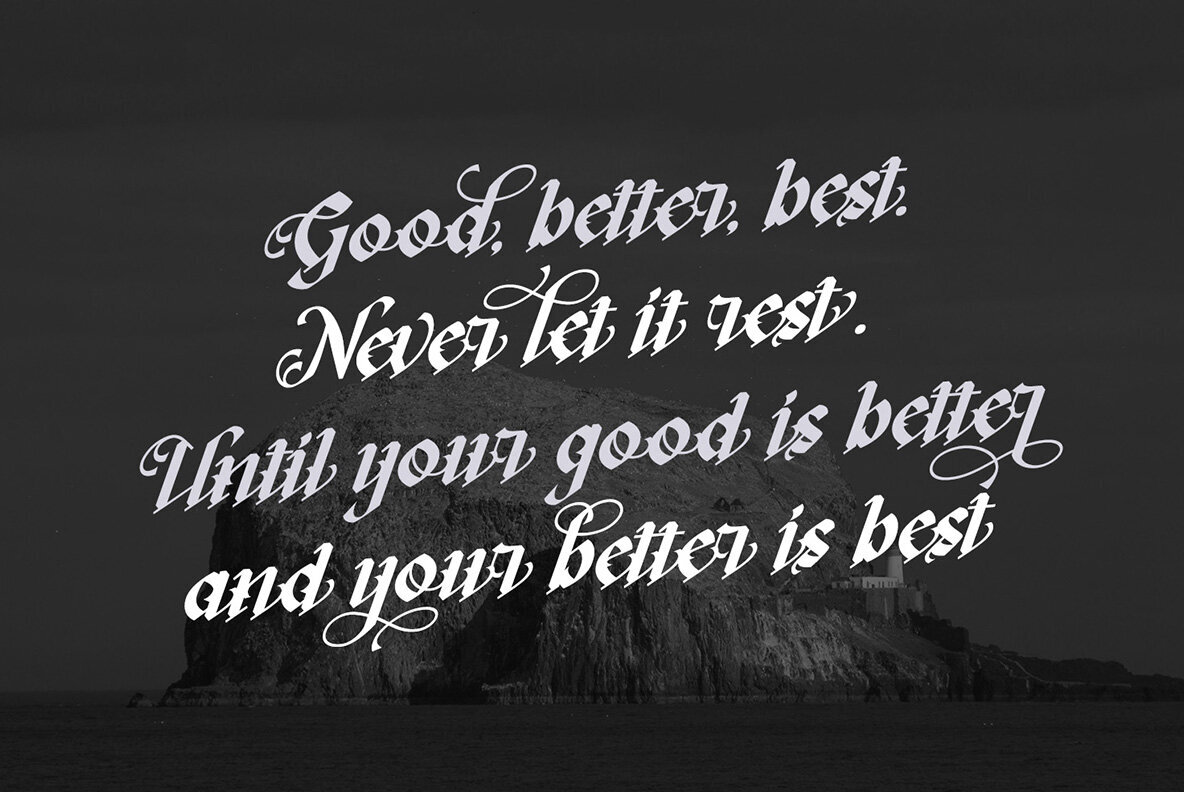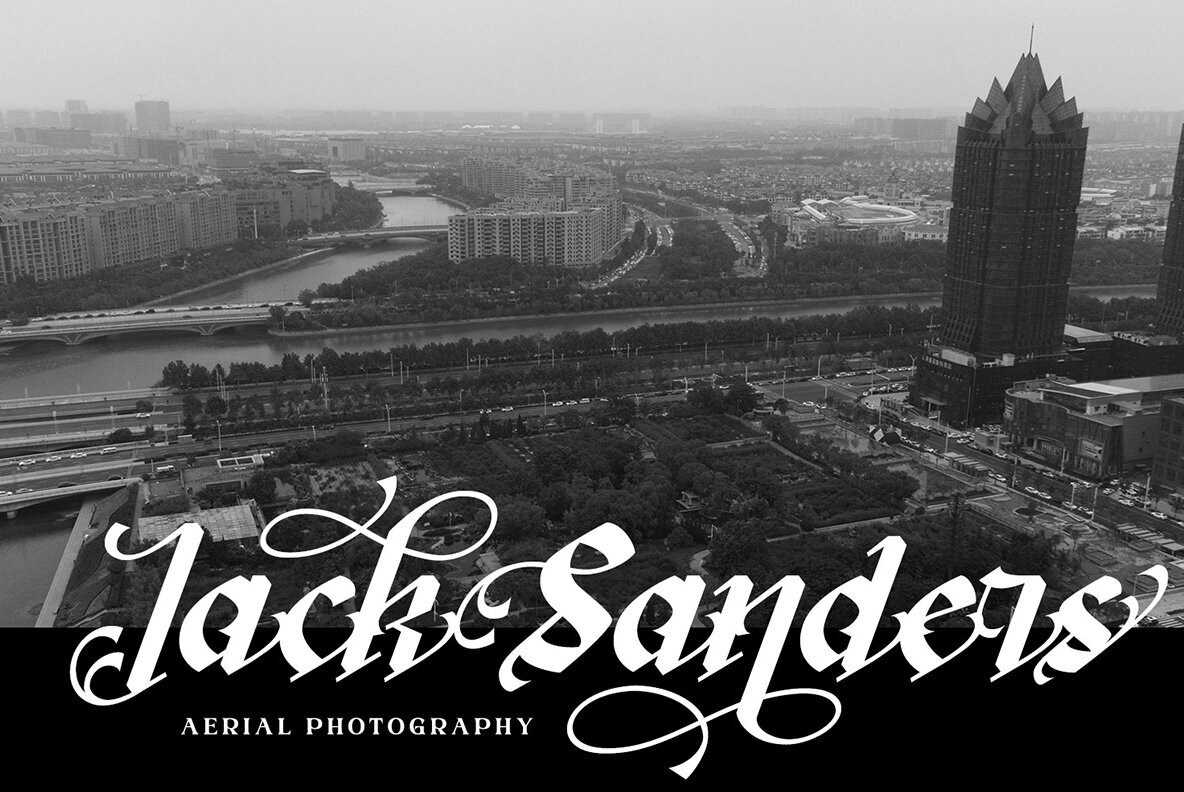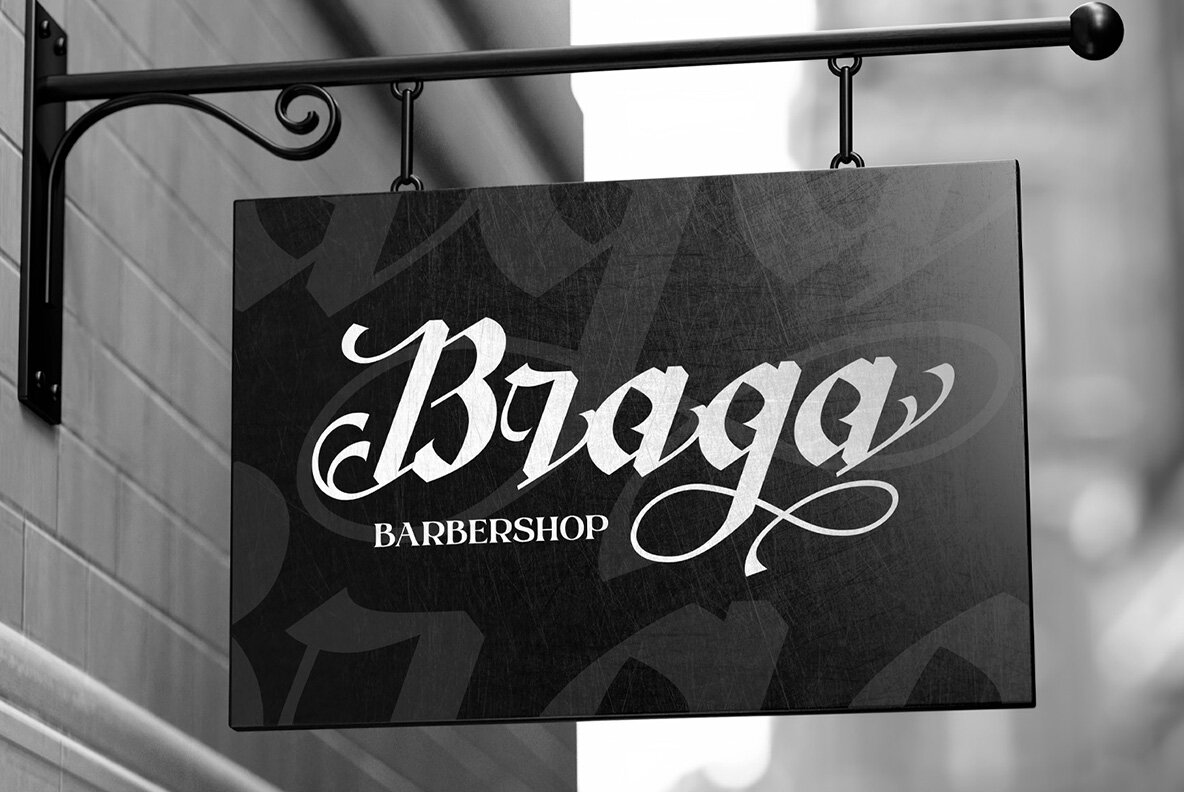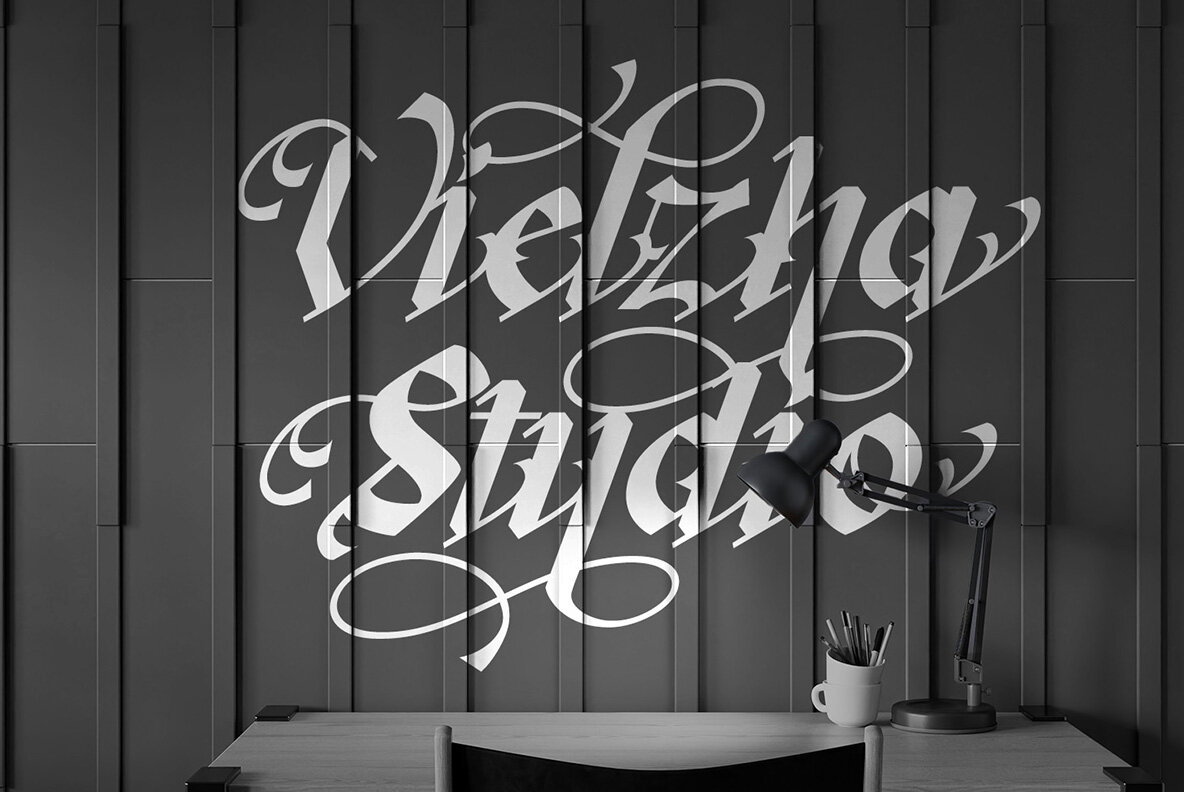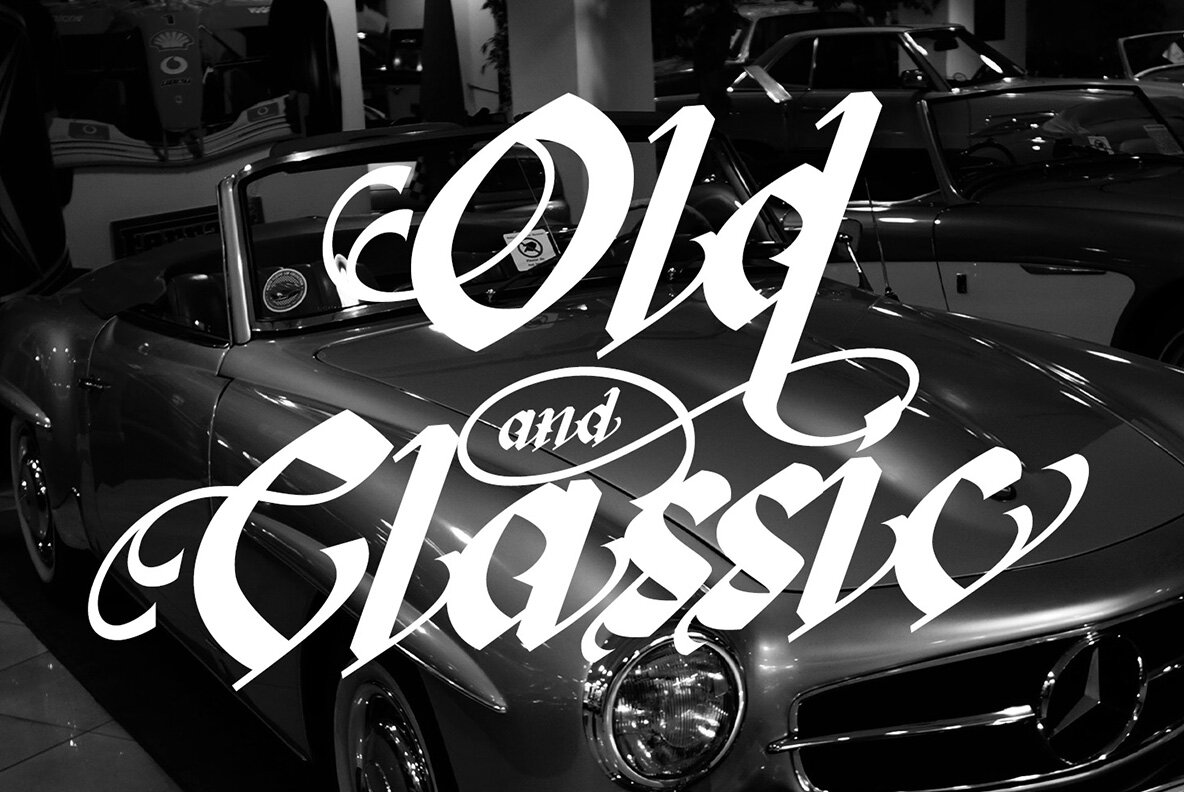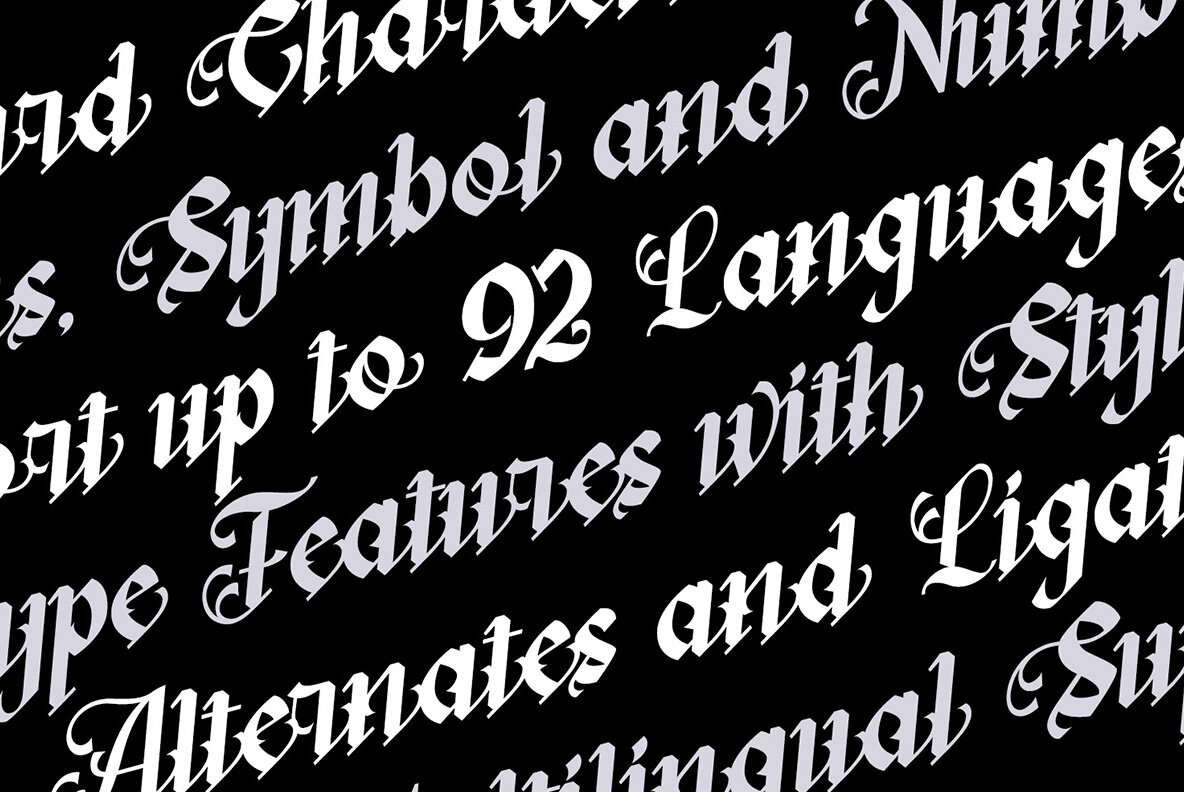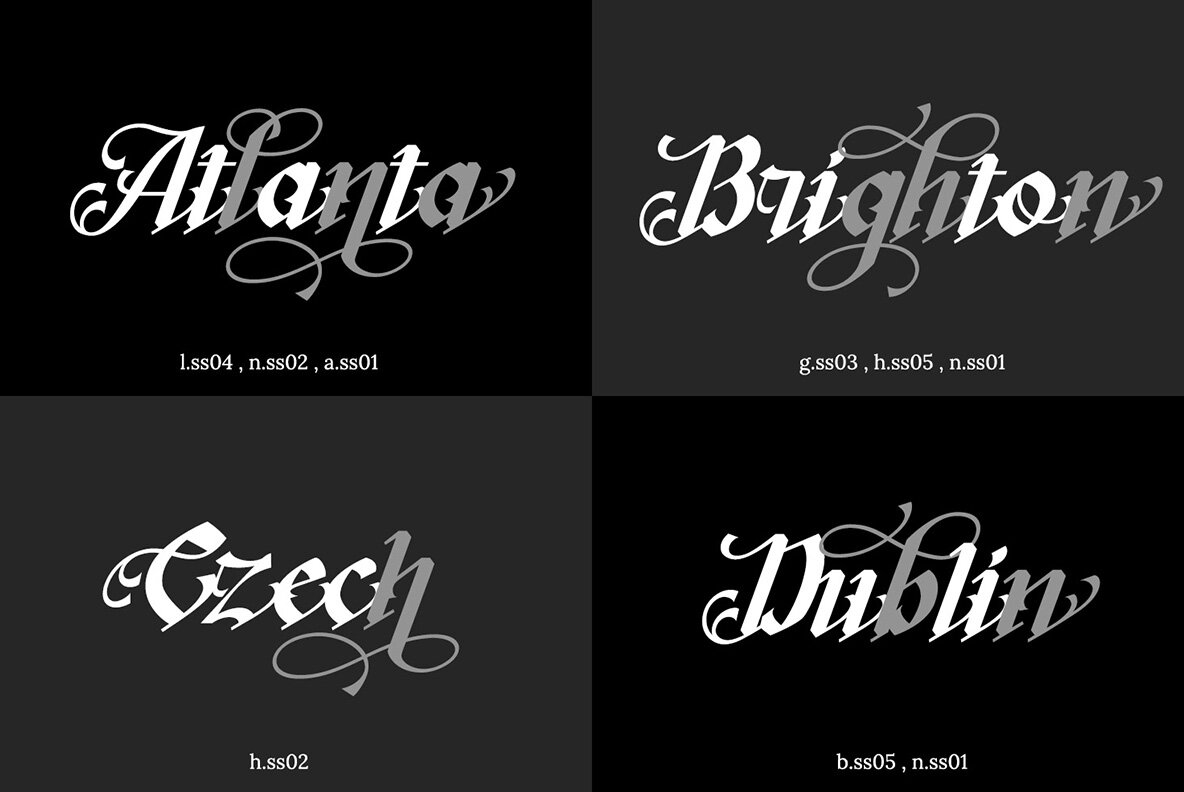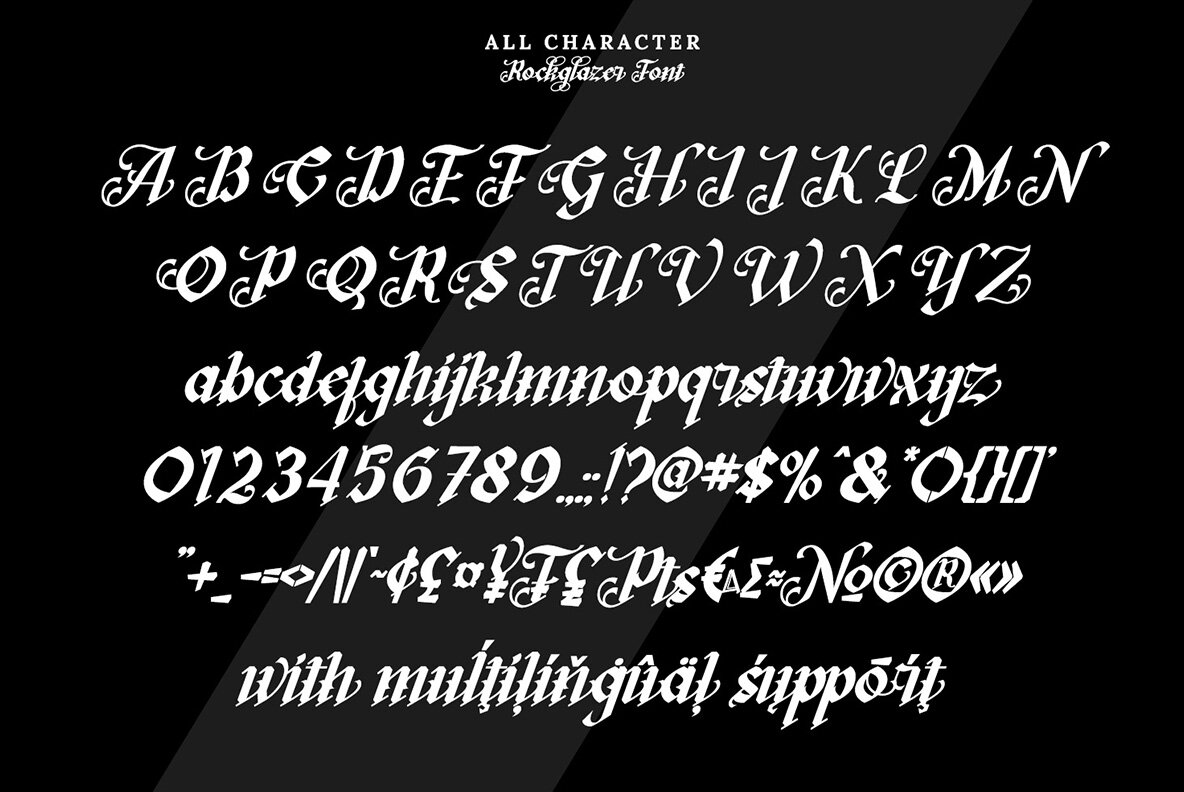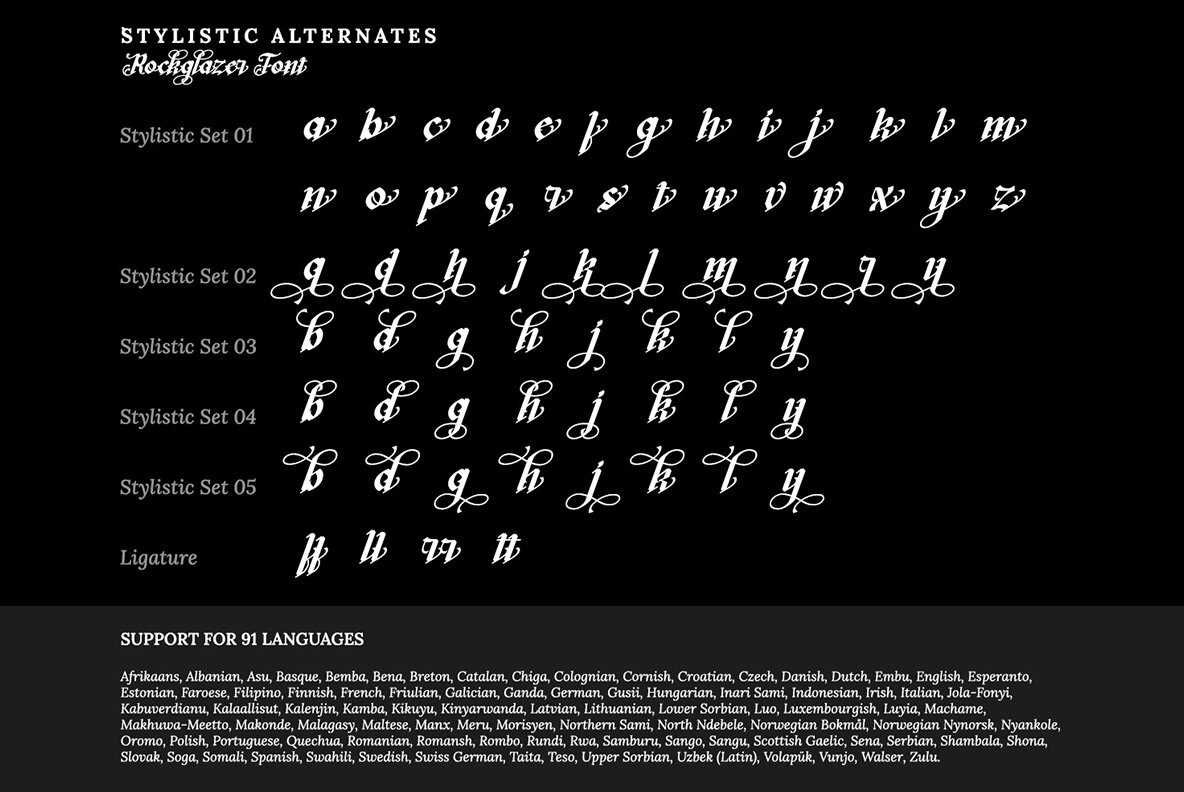
Rockglazer Font
Rockglazer
Rockglazer is a dynamic script font that stands out with its modern, bold, and strong character. Its unique design reflects a handwriting style through swinging curves and expressive wipes, offering an artistic touch to each letter. Notable for its distinct line thickness, Rockglazer ensures excellent legibility even in larger text sizes. This makes it an ideal choice for impactful and readable designs.
This versatile font is equipped with features like stylistic sets, ligatures, and multilingual support, alongside PUA encoding and extensive numerals and punctuation options. Perfect for diverse design projects, Rockglazer seamlessly adapts to posters, banners, logos, magazine covers, quotes, greeting cards, and more. Explore its full potential by delving into the font preview, and discover the many creative applications it offers.